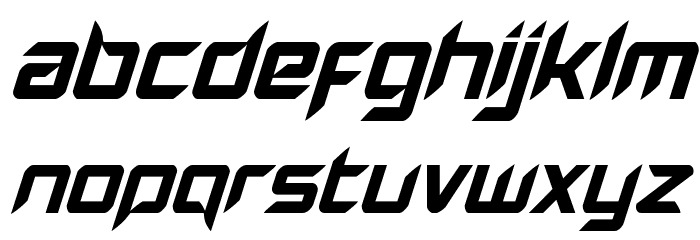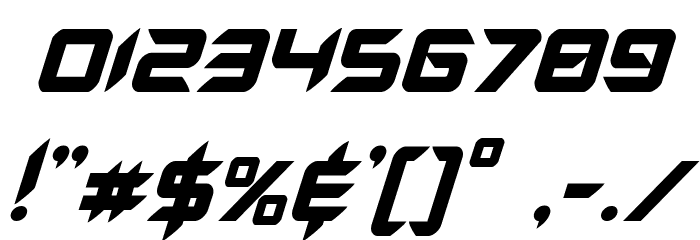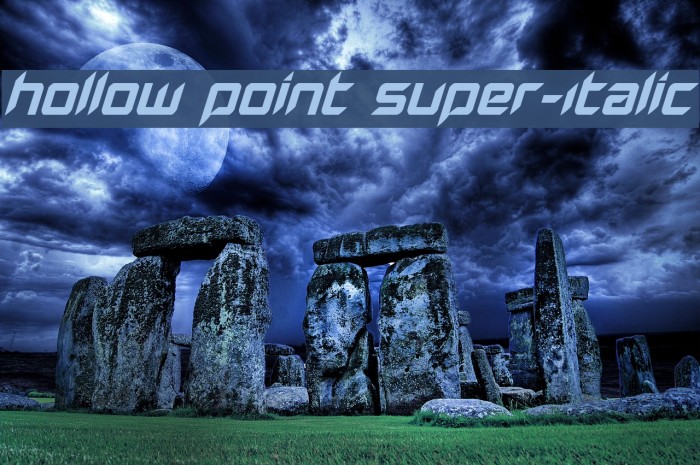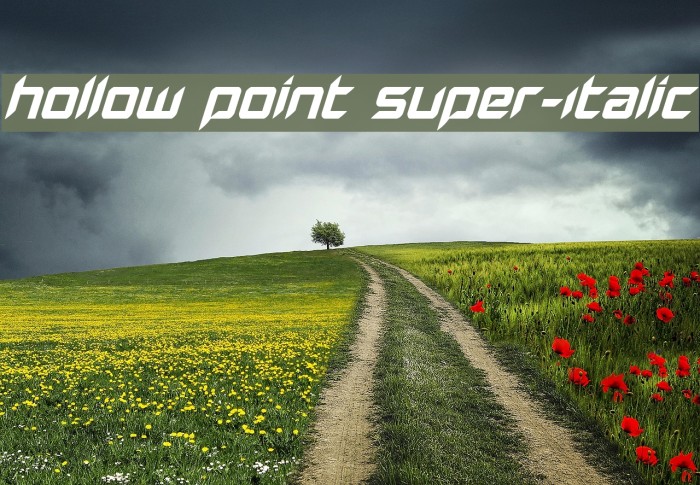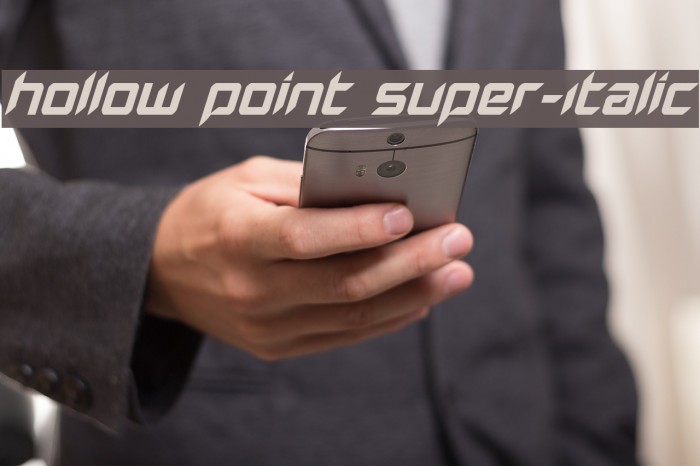
Hollow Point Super-Italic Font
This font features a dynamic and futuristic design with sharp, angular edges and a distinct italic slant. The characters are bold and impactful, creating a sense of motion and speed. The uppercase and lowercase letters maintain a consistent style, with a geometric structure that gives a modern and edgy appearance. The numerals and special characters follow the same design principles, ensuring uniformity across all glyphs. The font's unique style makes it suitable for projects that require a strong visual impact.
A bold, italic font with sharp, angular edges and a futuristic style.
- Proposed Projects: Ideal for sports branding, video game titles, sci-fi movie posters, and tech-related logos.
- Overall Style: Futuristic, Dynamic